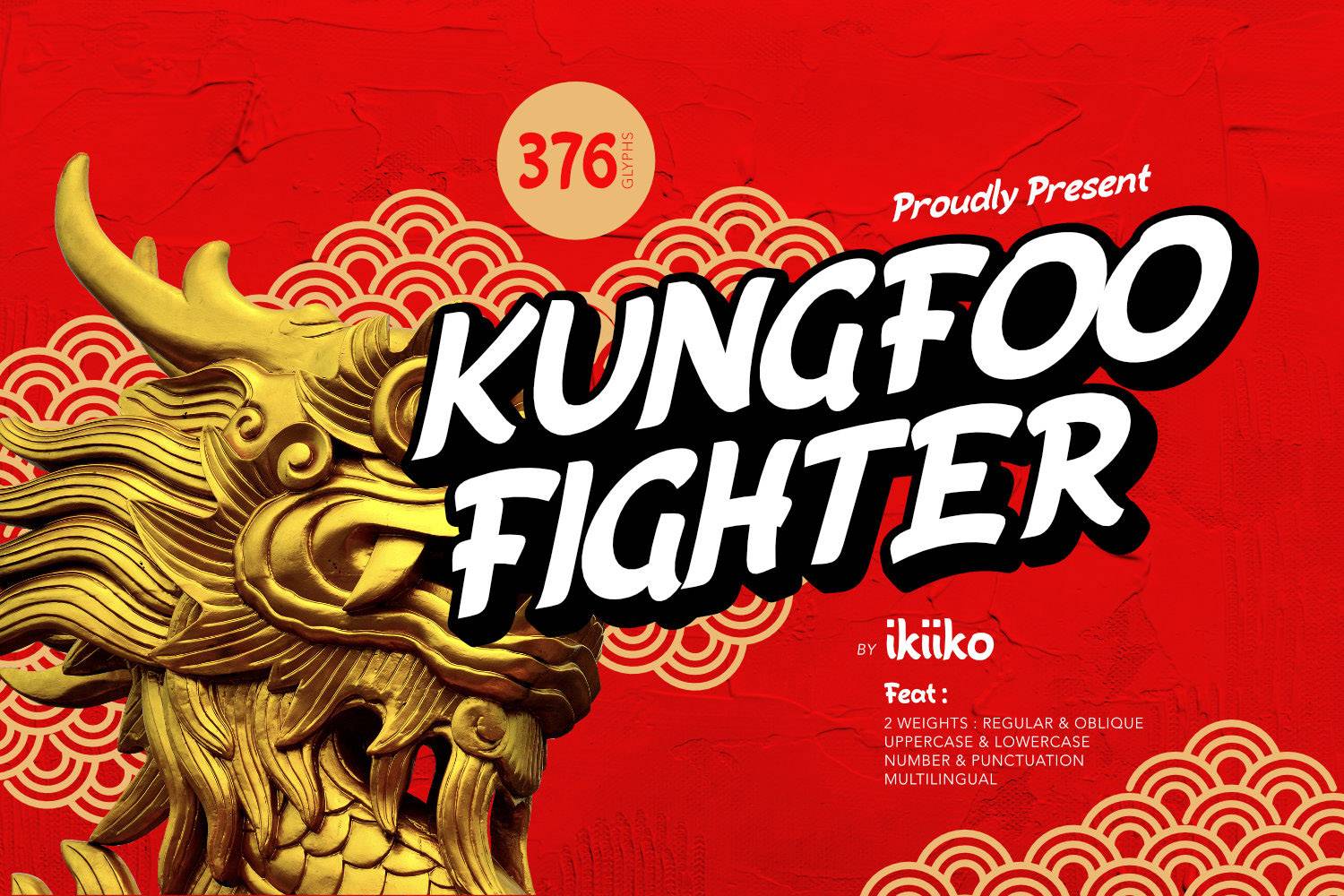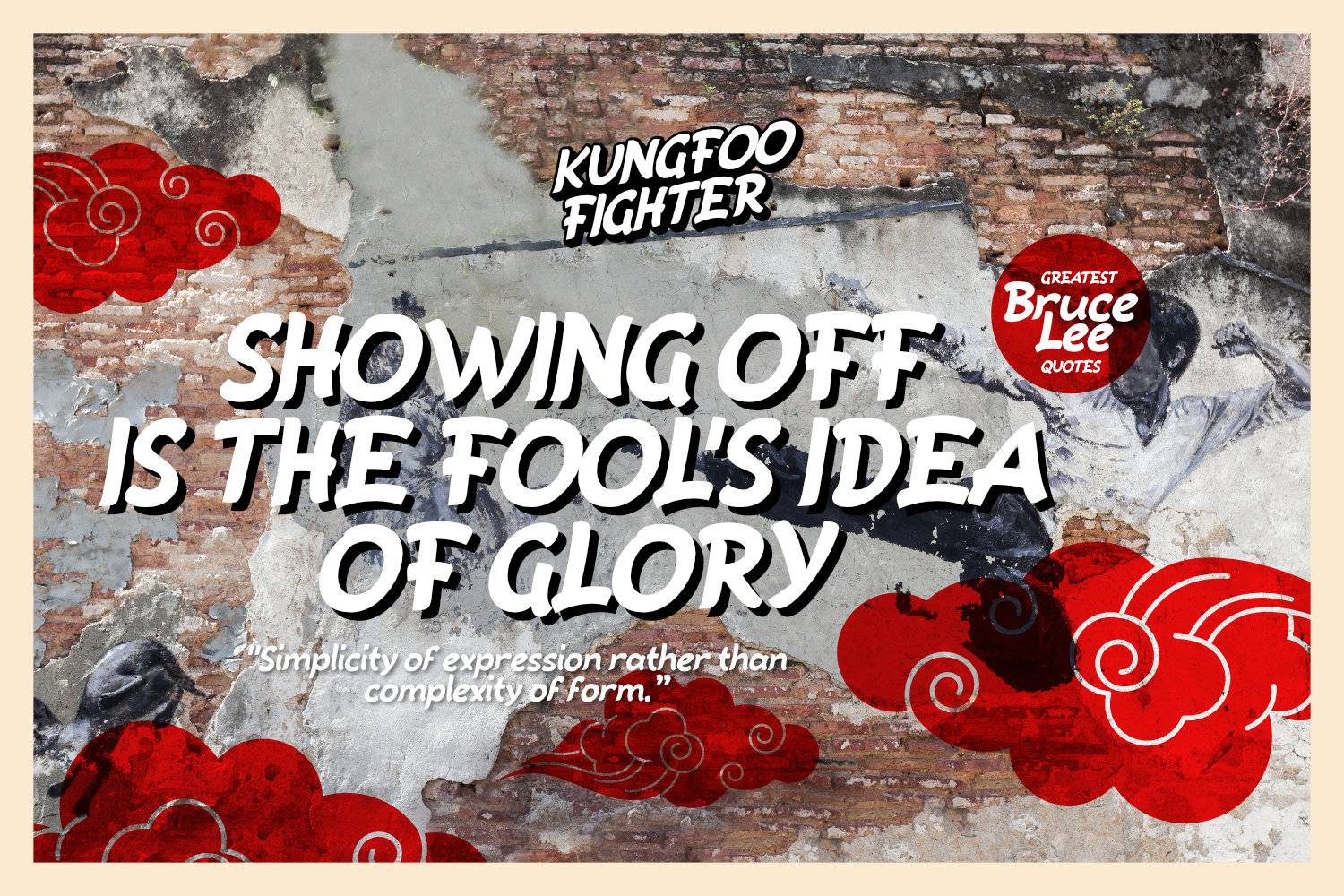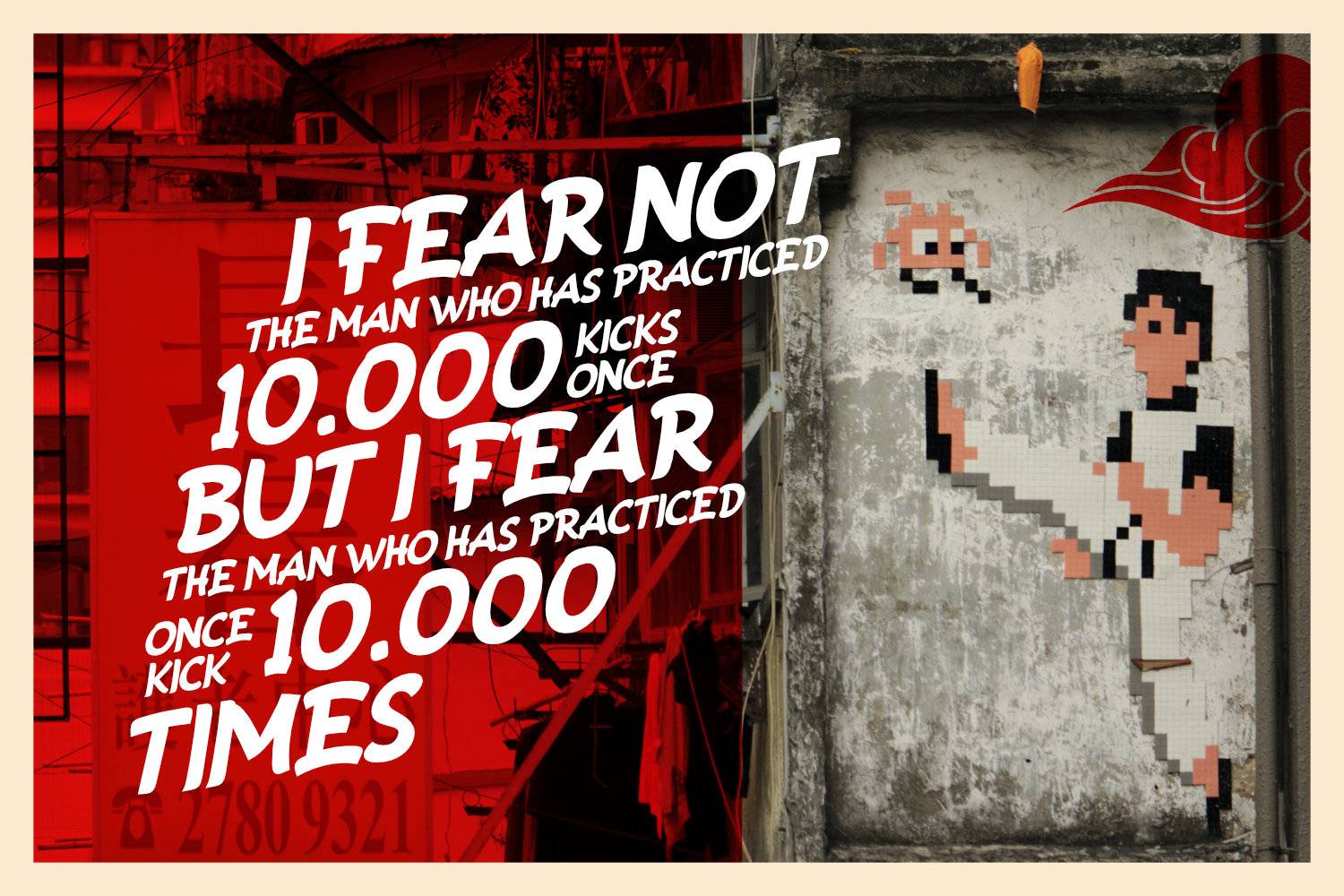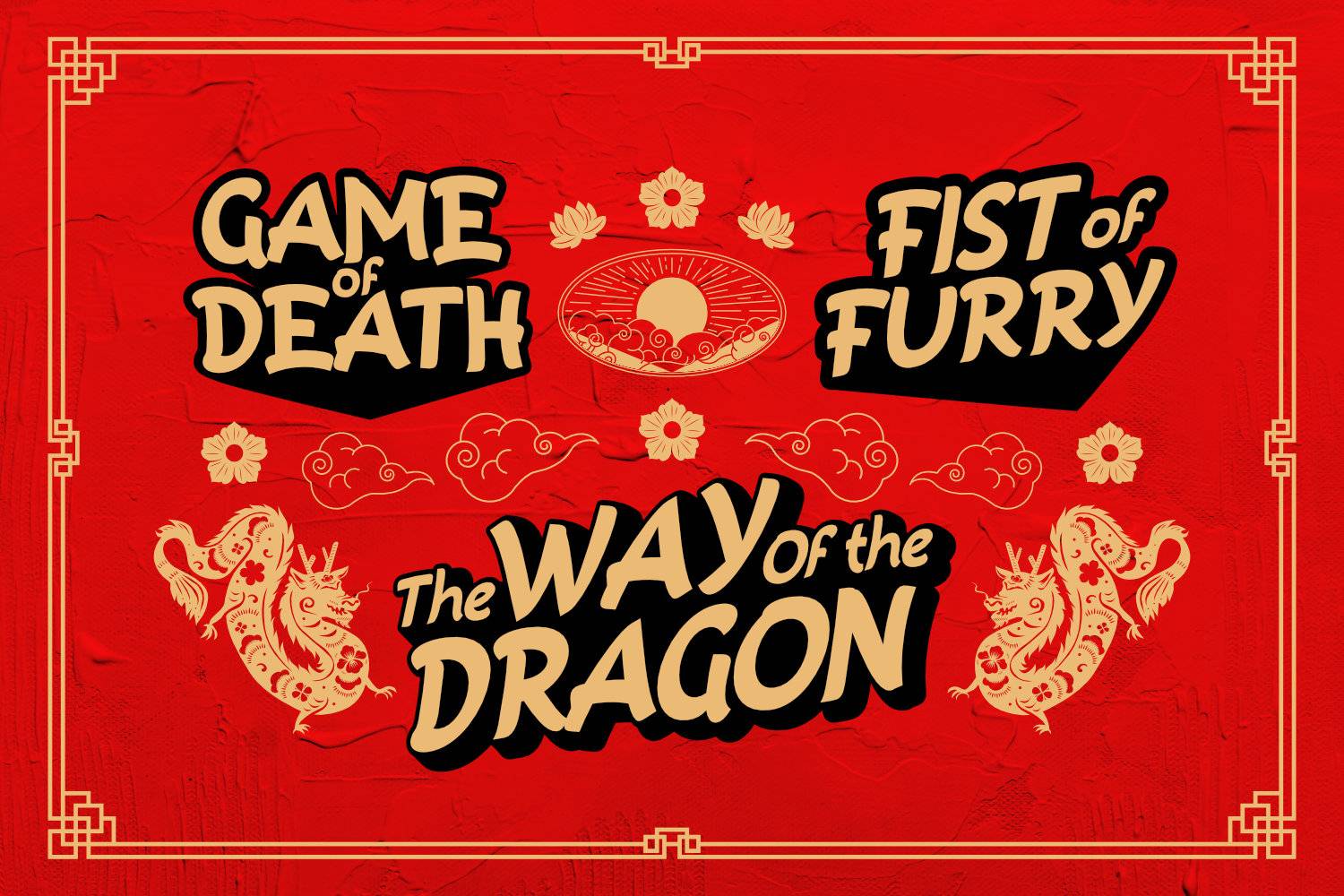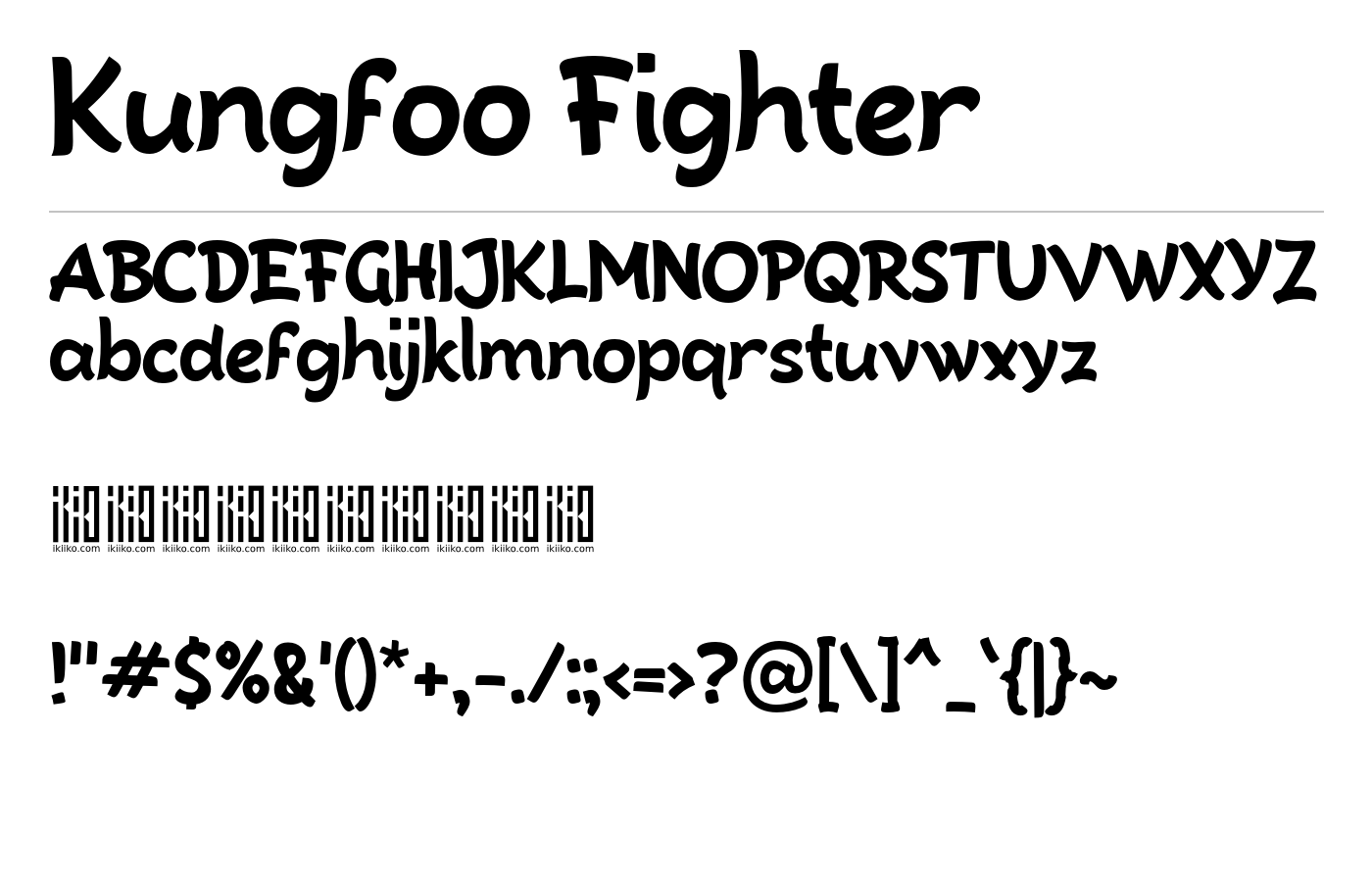
Kungfoo Fighter is a playful and bold sans serif font with a hand-drawn feel, featuring slightly irregular, rounded strokes and a medium x-height that gives it an approachable and energetic character. Its informal style and quirky letterforms make it ideal for casual branding, fun headlines, posters, and creative projects that want to convey friendliness and a sense of action. This font works best where a lively, youthful vibe is desired, capturing attention without feeling too formal or rigid.
Kungfoo Fighter Font
About Kungfoo Fighter Font
| Font family | Kungfoo Fighter Font |
| Release date | 2022-01-24 |
| Designer | Wahyu Eka Prasetya, Andhika Pradana |